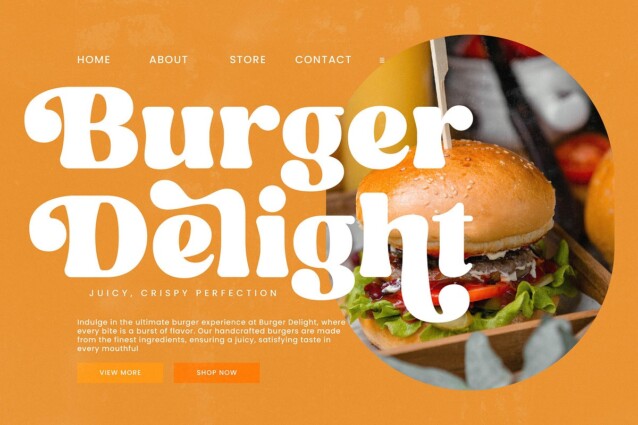
Madnight Honeys Font is a refined and elegant typeface that combines classic charm with modern versatility. Suitable for any projects such as: logos, branding projects, homeware designs, product packaging, mugs, quotes, posters, shopping bags, t-shirts, book covers, name card, invitation cards, greeting cards, label, photography, watermark, special events, and all your other luxury and beautiful projects that need a Luxury Serif taste.
Madnight Honeys